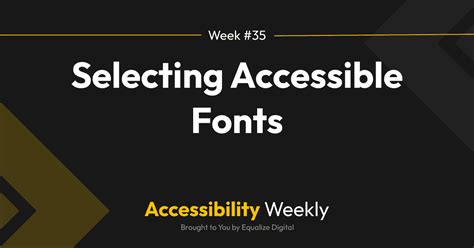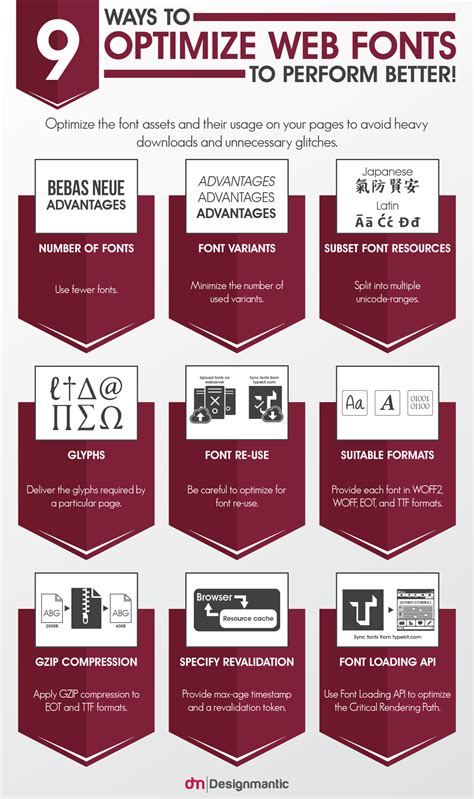
Best Fonts for Website Design and Branding
Readers, have you ever wondered how certain websites instantly grab your attention and make you feel a specific way? The secret often lies in the **fonts** they choose. Selecting the right fonts for your website design and branding is crucial for building a strong presence and creating a lasting impression. Think about it - you might not even realize it, but fonts have a massive impact on your perception of a website, influencing your trust, interest, and even your willingness to do business with a brand. You'll be surprised to learn how much power is embedded in those tiny characters.
As a seasoned SEO content creator, I've analyzed countless websites and seen firsthand the power of fonts in branding and user experience. I'm here to guide you through the world of web fonts, sharing insights and tips to help you choose the best ones for your website.
Understanding the Importance of Fonts in Website Design and Branding
Fonts aren't just about aesthetics - they can make or break your website's identity. A poorly chosen font can clash with your brand image, making it look unprofessional or even amateurish. To understand how to choose fonts that align with your brand, let's dive into what they convey and why they matter.
The Power of Visual Communication: How Fonts Shape Perception
Fonts are powerful visual elements that convey emotions and messages. They create a first impression and contribute significantly to brand recognition and memorability. Imagine a logo with a playful script font - it instantly evokes a sense of fun and creativity. Now picture the same logo with a bold, sans-serif font - it projects professionalism and authority. As you can see, the right font can instantly set the tone for your website and your brand.
Brand Consistency: Fonts as a Key Element of Visual Identity
Consistency is key in branding. Using the same fonts throughout your website, marketing materials, social media, and even your physical branding helps build brand recognition. Imagine seeing a website using a familiar font - it instantly cues that you've encountered this brand before, fostering trust and familiarity.
User Experience: Readability and Accessibility Through Font Choice
While aesthetics are crucial, don't forget about the user experience. Choosing fonts that are easy to read and accessible for everyone is vital. Consider the size, weight, and contrast of the fonts you choose. A font that looks great in your header might be difficult to read in body text. Prioritize readability, especially when writing long, complex content.
Types of Fonts: A World of Possibilities
The world of fonts is vast and varied. There are countless styles to choose from, each with its own personality and purpose. Understanding the different types of fonts available can help you make informed choices that align with your brand's essence.
Serif Fonts: Elegance and Tradition
Serif fonts are characterized by small decorative strokes at the ends of their letters - think Times New Roman or Garamond. They traditionally convey a sense of elegance, professionalism, and sophistication. Serif fonts are often used for body text in books, magazines, and websites where readability and a classic feel are desired.
Sans-Serif Fonts: Modernity and Cleanliness
Sans-serif fonts, like Arial or Helvetica, lack the decorative strokes found in serif fonts. They are known for their clean, modern, and minimalist aesthetic. Sans-serif fonts are often used for website headers, logos, and modern designs where simplicity and bold impact are desired. They are also popular for digital interfaces due to their clarity and readability on screens.
Script Fonts: Cursive and Handwritten Charm
Script fonts mimic handwritten styles, often adding a touch of personality and elegance to designs. Fonts like Brush Script or Pacifico are popular for logos, wedding invitations, and designs that evoke a sense of artistry and warmth. However, it's important to use script fonts sparingly as they can be difficult to read in large blocks of text.
Display Fonts: Bold and Statement-Making
Display fonts are designed for impact. They are often used for headings, titles, and graphics where a bold statement needs to be made. These fonts can be serif, sans-serif, or a combination of styles. They are characterized by their unique shapes, sizes, and decorative elements, adding a touch of drama and personality to designs.
Choosing the Best Fonts for Your Website: A Practical Guide
Now that you have a grasp of the different font types, it's time to choose the perfect ones for your website. There are no hard and fast rules, but here are some practical tips to help you make the right choices.
1. Define your Brand's Personality and Aesthetics
Before you start browsing font libraries, take some time to define what your brand is all about. What emotions do you want to evoke? What kind of audience are you trying to reach? What kind of tone do you want to convey? For instance, if you're a fashion brand, you might choose elegant fonts like Georgia or Garamond. If you're a tech startup, you might opt for clean, modern fonts like Open Sans or Lato.
2. Balance and Harmony: Choosing a Font Pair
Most websites use a combination of font styles. Think of it as a pairing of two fonts that complement each other. A common practice is to choose a serif font for body text and a sans-serif font for headings. This creates a visual hierarchy, making it easy for users to scan and digest the content. Make sure your chosen font pairs have good visual harmony and don't clash with each other.
3. Consider Readability and Accessibility
Don't let your love for a unique font compromise readability. Choose fonts that are easy to read, especially for body text. Avoid highly ornate or decorative fonts that can make it difficult for users to scan and comprehend your content. Also, ensure your fonts are accessible to people with disabilities. This includes choosing fonts with good contrast and using appropriate font sizes for different screen sizes and devices.
4. Experiment and Refine
There's no better way to find the perfect fonts for your brand than experimenting. Use online tools and font libraries to try out different combinations and see what works best. Don't be afraid to mix and match fonts to create a unique and memorable visual style for your website.
Popular Website Fonts That Stand Out: A Selection of Favorites
It's time for some inspiration! Here's a curated list of popular fonts frequently used on websites. These fonts have been chosen for their versatility, aesthetics, and their ability to create a strong visual impact. Let's explore them and see what makes them so popular.
1. Open Sans: Clean and Modern
Open Sans is a popular choice for its clean, modern, and minimalist aesthetic. It's incredibly versatile, making it suitable for both body text and headings. It's easy to read, making it a great choice for websites with lots of content. It is very popular for technology and business websites and is known for its readability and neutral tone.
2. Lato: Versatile and Stylish
Lato is a versatile and stylish sans-serif font. It comes in a range of weights, from thin to black, adding flexibility for designing different elements of your website. It's a great choice for websites that want a modern and elegant look.
3. Montserrat: Bold and Trendy
Montserrat is a bold and trendy sans-serif font with a geometric feel. It's particularly popular for headings and logos, adding a touch of modern flair to designs. It's a good choice for websites with a strong visual identity.
4. Roboto: Google's Go-To Font
Roboto is a clean and modern sans-serif font developed by Google. It's known for its readability and versatility, widely used in Google products and apps. It's a reliable choice for websites that prioritize readability and a modern aesthetic.
5. Playfair Display: Elegant and Sophisticated
Playfair Display is a serif font with a classic and sophisticated feel. It's often used for headings and titles, adding a touch of elegance to designs. It's a good choice for websites in industries like fashion, luxury, and hospitality.
6. Lora: Warm and Elegant
Lora is a serif font with a warm and elegant feel. It's a popular choice for body text, creating a readable and inviting reading experience. It's a good choice for websites in industries like publishing, education, and lifestyle.
7. Poppins: Sophisticated and Modern Sans Serif
Poppins is a popular choice for websites seeking a sleek and sophisticated look. Its clean lines and refined appearance make it a good choice for brands aiming to convey professionalism and modernity.
8. Merriweather: Warm and Elegant Serif
Merriweather is a serif font that exudes warmth and elegance. Its gentle curves and traditional style make it well-suited for websites that want to create a sense of comfort and sophistication. It's a popular choice for blogs, magazines, and websites focused on content that requires a soothing and easy-on-the-eyes typography.
Font Resources: Where to Find and Try Out Fonts
Now that you have a better understanding of fonts and their impact, it's time to explore the world of font resources. There are numerous websites and tools available to help you find and try out fonts for your website.
1. Google Fonts: A Free and Extensive Library
Google Fonts is a free and extensive library of open-source fonts. It offers a diverse range of fonts, from classics to modern designs, making it an excellent resource for finding the perfect font for your website. The best part is that it's easy to use, and you can preview fonts before adding them to your website.
2. Font Awesome: Icons for Every Occasion
Font Awesome is a powerful tool for incorporating icons into your website designs. It provides a vast library of icons that can be used for navigation, social media, and more. These icons are all font-based, making them scalable and easy to customize.
3. Adobe Fonts: A Premium Font Library
Adobe Fonts offers a premium font library with access to thousands of fonts, including both free and paid options. It's a great resource for finding unique and high-quality fonts that can elevate your website's design.
4. Font Squirrel: A Curated Collection of Free Fonts
Font Squirrel is a popular website for finding free fonts. It offers a curated collection of free fonts, ensuring high-quality and usability. The website also provides tools for converting fonts to web-friendly formats.
5. Typewolf: Font Inspiration for Your Website Design
Typewolf is a valuable resource for website designers seeking inspiration for font pairings. The website features curated lists of popular font combinations, showcasing how different fonts work together to create visually appealing and effective web designs.
Font Optimization for SEO: A Guide to Improve Visibility
While font choice is primarily about aesthetics and user experience, it also influences SEO. By optimizing your fonts for search engines, you can improve your website's visibility and attract more organic traffic. This includes using fonts that are mobile-friendly and ensuring that your website's content is easily readable by search engine crawlers.
1. Mobile-Friendly Fonts: Ensure Readability Across Devices
With more internet users accessing websites on mobile devices, it's crucial to ensure that your fonts are mobile-friendly. Choose fonts with good legibility at smaller screen sizes. Avoid using overly decorative fonts that may be hard to read on smaller screens.
2. Font Size Optimization: Adjusting for Readability
Using appropriate font sizes is crucial for readability. Use larger font sizes for headings, titles, and important elements on your website. Ensure that the body text is large enough to be easily read on different devices. Use a font size that is comfortable to read on both desktops and mobile devices.
3. Font Weight: Adding Emphasis and Visual Interest
By varying font weights, you can add emphasis to specific elements of your website. For example, you can use a bolder font weight for headings or titles to draw attention to them. This can help with scannability on a page.
4. Font Colors: Optimizing for Contrast and Visibility
Ensure that the fonts you choose have adequate contrast with the background colors. This helps with readability and accessibility. Choose colors that are easy on the eyes and provide a clear distinction between text and the background.
5. Font Loading Time: Ensuring Fast Page Load Speeds
Font loading times can impact page load speeds, which is a crucial SEO factor. Use web fonts that load quickly and have minimal impact on your website's performance.
Frequently Asked Questions About Fonts
(H3) What are the best fonts for website headlines?
The best fonts for headlines are typically bold and eye-catching, like Montserrat, Playfair Display, or Roboto Slab. These fonts help create visual hierarchy and attract attention to important sections of your website.
(H3) How do I choose a font pairing for my website?
Consider choosing a font pairing that complements each other - a classic serif font for body text and a modern sans-serif font for headings. Experiment with different pairings to find a combination that reflects your brand's personality and visual style.
(H3) What font should I use for my website's logo?
The font you choose for your logo is critical for brand recognition. Consider fonts that are unique, memorable, and reflect your brand's core values. Script fonts, bold sans-serif fonts, or even custom-designed fonts can make your logo stand out.
Choosing the best fonts for website design and branding is an essential step in creating a compelling and impactful online presence. Remember to prioritize readability, accessibility, and brand consistency. Explore different font styles and resources, and don't be afraid to experiment with combinations to find what works best for your website.
From clean and modern sans-serif fonts to elegant serif fonts, the world of typography offers a vast array of choices. By carefully considering your brand's personality, user experience, and SEO implications, you can select fonts that will elevate your website's design and help you achieve your online goals.